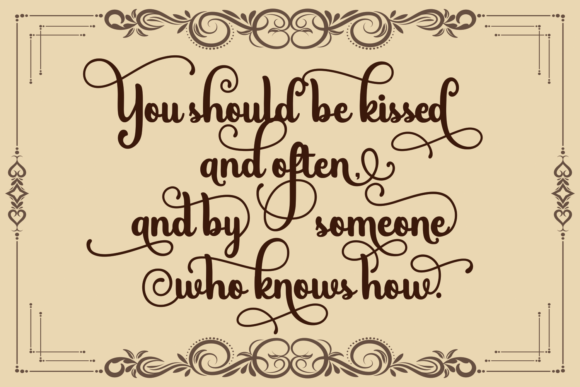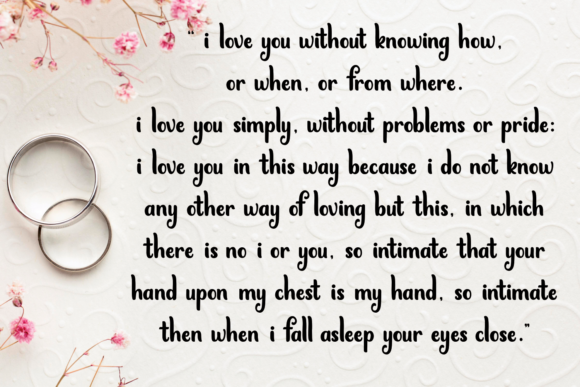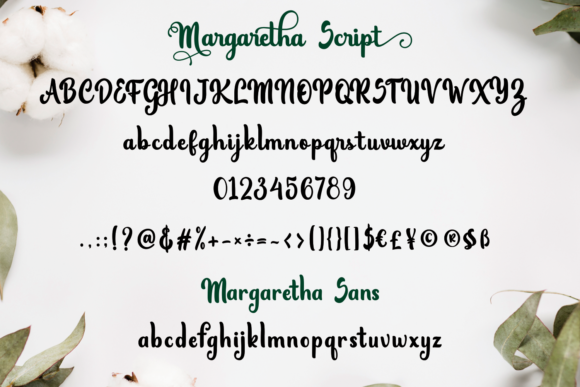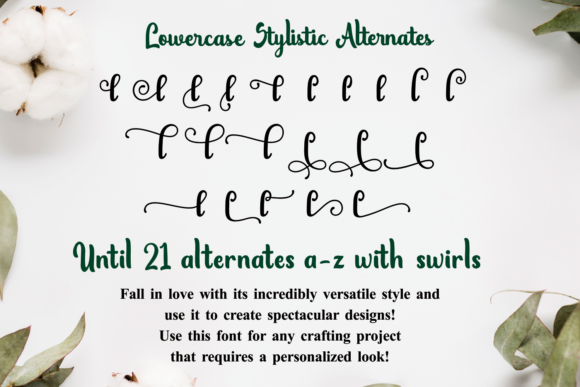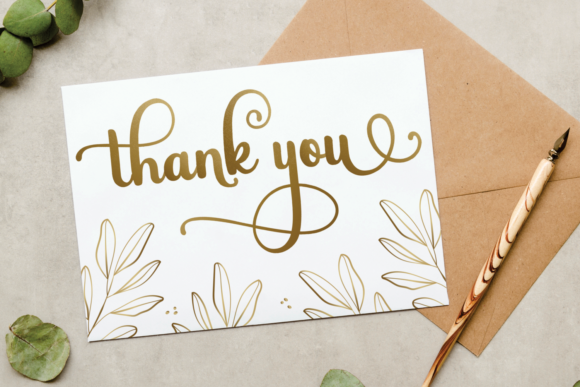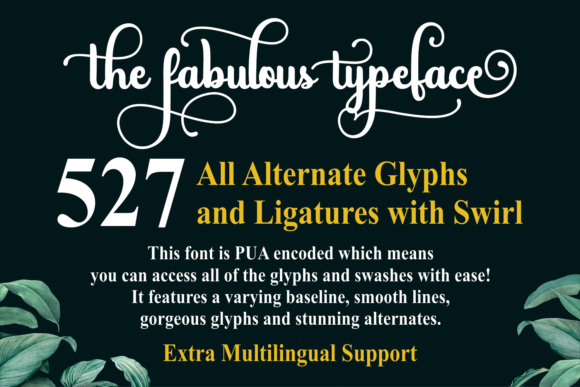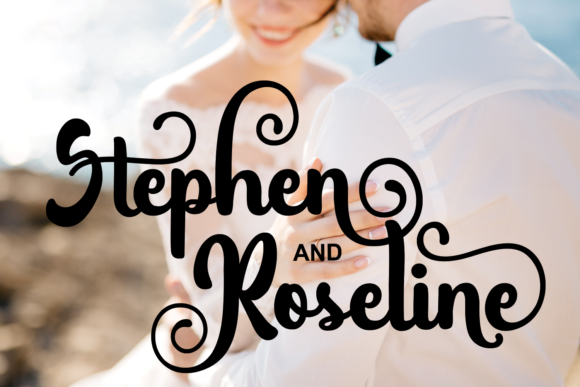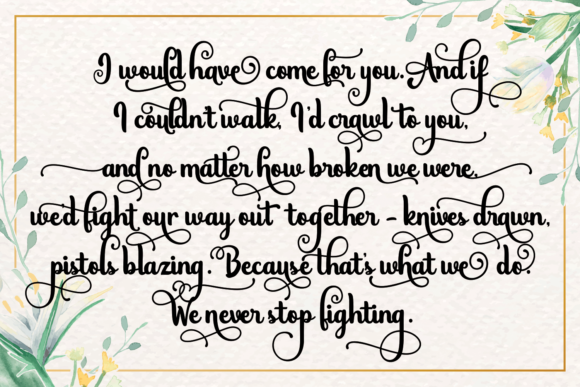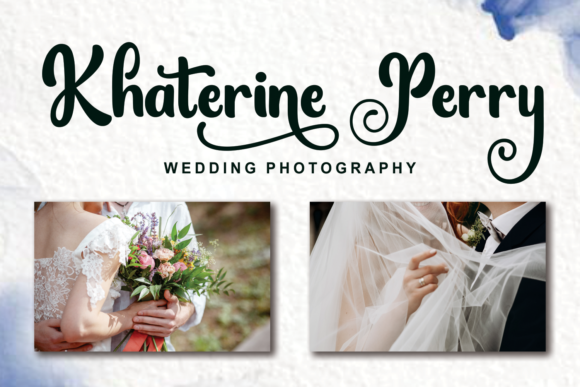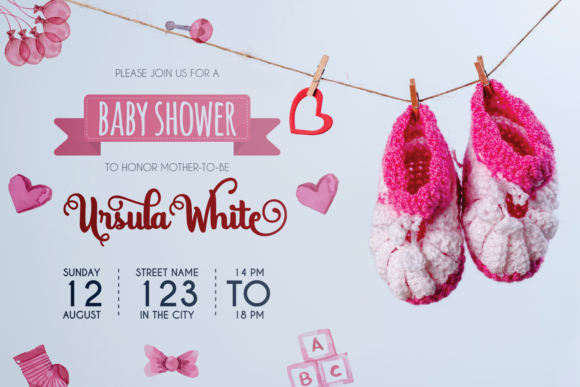
Margaretha Font
About Margaretha Font
Margaretha is an exquisite script font that captures a blend of contemporary elegance and the timeless beauty of classic calligraphy. Its impeccable form and well-balanced characters make it a versatile choice that complements a wide range of design projects.
With its contemporary atmosphere, Margaretha brings a modern twist to traditional calligraphy, making it suitable for various applications across both digital and print media.
The font’s beautiful and flowing characters create a sense of fluidity and grace, adding a touch of sophistication to any design it graces. Whether you’re designing wedding invitations, branding materials, logos, or elegant editorial layouts, Margaretha’s refined aesthetics will elevate the overall visual appeal.
The inclusion of glyphs and swashes, made accessible through PUA encoding, provides you with the tools to further customize and enhance your designs. This allows for a personalized and unique touch, ensuring that your creations stand out and reflect your creative vision.
Margaretha’s versatility is evident in its compatibility with a diverse array of projects. From luxurious wedding invitations that demand a touch of timeless romance to sleek and modern branding materials that require a contemporary edge, Margaretha adapts seamlessly to different design requirements.
When used in logos and branding, Margaretha adds a sense of sophistication and exclusivity, making it suitable for high-end products, services, or businesses that value a refined image.
In editorial design, Margaretha’s elegant form can create a sense of luxury and timelessness, enhancing the overall reading experience and visual appeal of magazines, brochures, and other print materials.
No matter the application, Margaretha’s impeccable form and well-balanced characters ensure that it will be a standout element, capturing attention and leaving a lasting impression.
Incorporating Margaretha into your design projects opens up a world of creative possibilities, allowing you to infuse your work with a touch of timeless elegance and contemporary flair. Its versatility, combined with its accessible glyphs and swashes, makes it a valuable asset in your font collection, ready to enhance your designs and bring your creative vision to life.